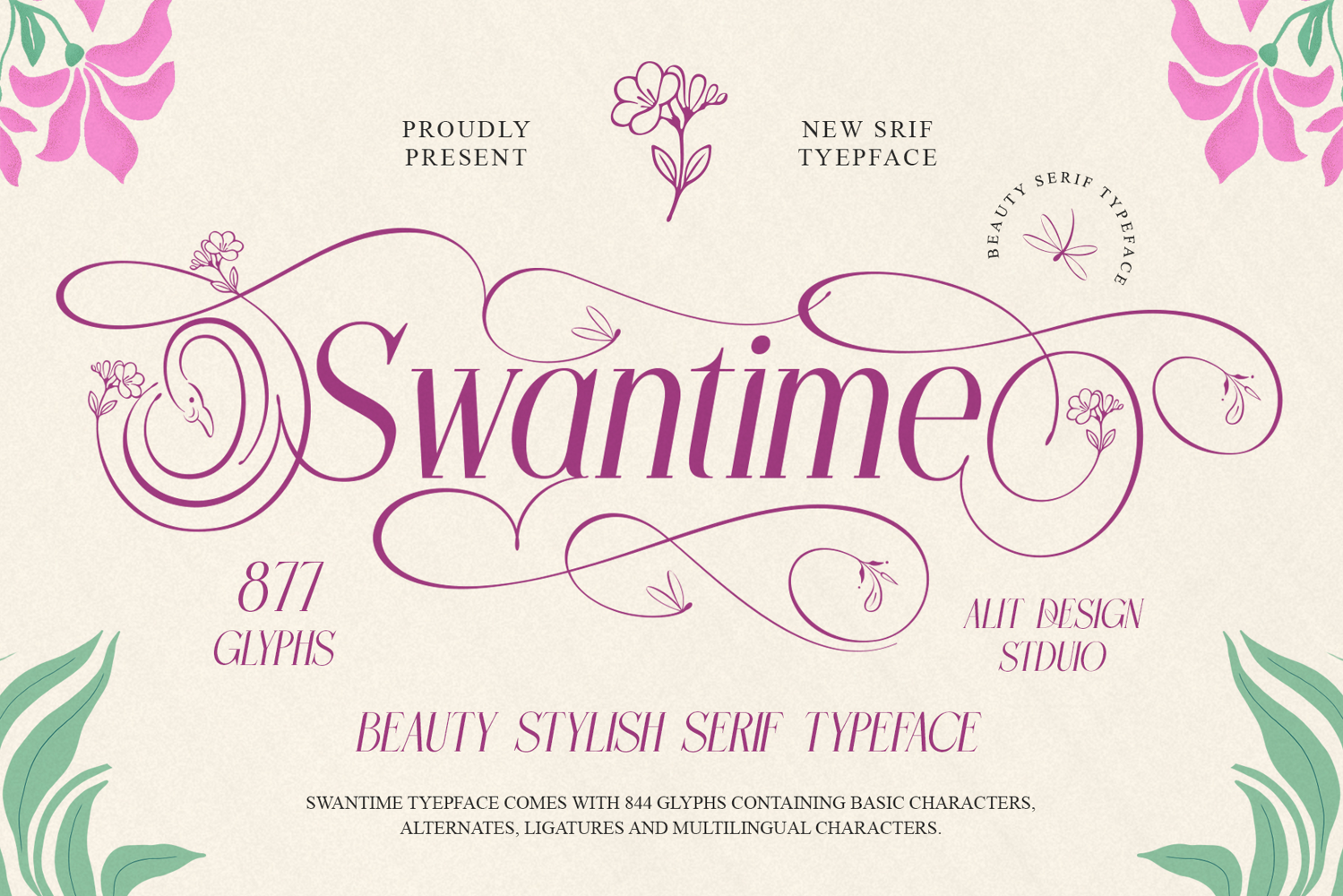
Swantime Typeface
Swantime - An Elegant Nature Serif Typeface
Introducing Swantime, a stunning serif typeface where modern elegance dances with the enchanting beauty of nature. Like a graceful swan gliding across a serene lake, Swantime brings a dynamic and romantic flair to your designs. Its slanted form creates a sense of movement, while its clean lines maintain a simple, modern sophistication.
What makes Swantime truly captivating are its intricate, built-in ornaments. Discover characters that seamlessly bloom with delicate flowers, take flight with butterflies and dragonflies, or curve into the elegant shape of a swan. With over 870 glyphs, including multiple stylistic sets, ligatures, and alternates, you have a powerful toolkit to create truly unique and breathtaking typography.
Swantime is not just a font; it's an artistic experience, perfect for projects that require a touch of magic and refined beauty.
Key Features:
• An elegant, modern slanted serif base font.
• Over 870+ total glyphs, offering immense creative freedom.
• Unique Nature Ornaments: Beautifully integrated swans, flowers, dragonflies, and butterflies.
• Multiple Stylistic Sets: A wide variety of alternate characters to customize your text.
• Beautiful Ligatures for a natural and flowing typographic feel.
• Full character set including Uppercase, Lowercase, Numerals, and Punctuation.
• Extensive Multilingual Support for broad international use.
Ideal For:
• Luxury Branding & High-End Packaging
• Wedding Invitations, Stationery & Save the Dates
• Signature Logos & Watermarks
• Perfume & Cosmetics Brands
• Book Covers & Magazine Headlines
• Elegant Social Media Graphics & Quotes
• Boutique & Floral Shop Branding